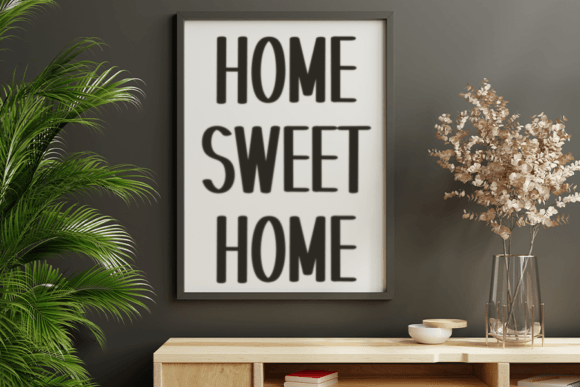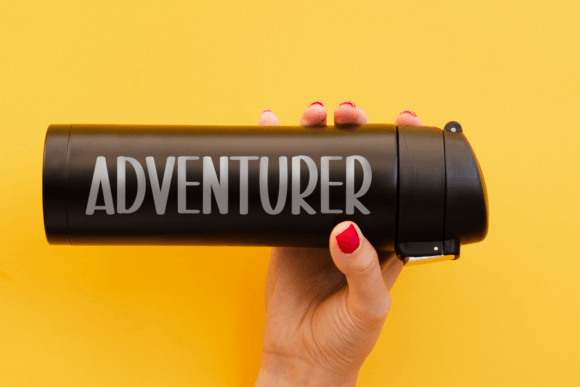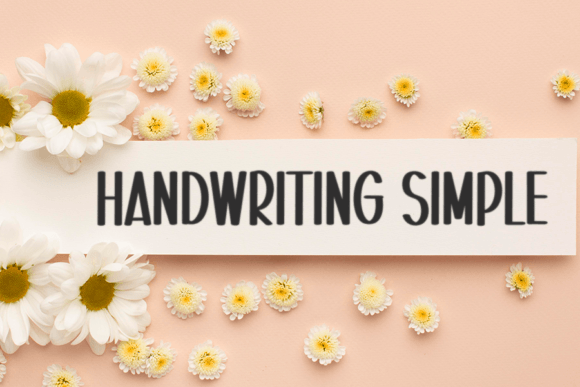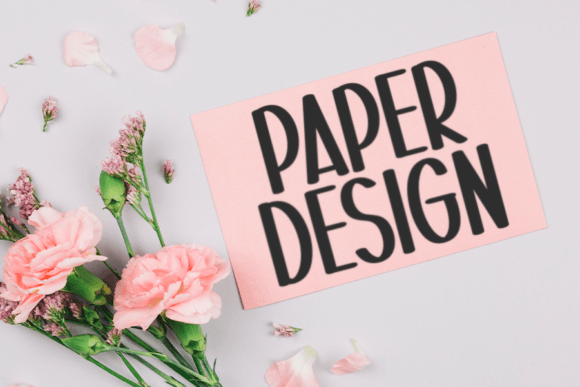
The Magic of December Font: Elevate Your Designs with this Stunning Display Font
I’ll never forget the time I was working on a magazine project, and my client asked me to create a cover that would make their competitors green with envy. I had a vision of a beautiful, elegant design, but I was struggling to find the perfect font. That’s when I stumbled upon December Font, and it changed the game. In this article, I’ll share my experience with this gorgeous display font, and show you how to make the most of its features.
December Font has become a staple in my font library, and here’s why:
- ✨ It’s perfect for display purposes, with elegant lines and a sophisticated feel.
- ✅ The font is highly versatile, and can be used for a wide range of design projects, from magazines to crafts.
- 💫 It comes with a range of OpenType features, including glyphs and stylistic alternates, which allow for endless creativity.
However, I do have to mention a few quirks:
- 🤔 The font can be a bit tricky to read at smaller sizes, so it’s best used for headlines and titles.
- ⚠️ Some of the more intricate details can get lost if the font is heavily scaled or distorted.
The Story Behind December Font
December Font was created by a talented type designer who wanted to create a font that would evoke the magic of the winter season. The font’s elegant lines and sophisticated feel make it perfect for designs that require a touch of luxury.
| Font Name | December Font |
| Author | Creatype Designer |
| What is December Font best used for? | December Font is best used for display purposes, such as headlines, titles, and magazine covers. |
| Is December Font suitable for body text? | No, December Font is not suitable for body text, as it can be difficult to read at smaller sizes. |
| Does December Font come with OpenType features? | Yes, December Font comes with a range of OpenType features, including glyphs and stylistic alternates. |